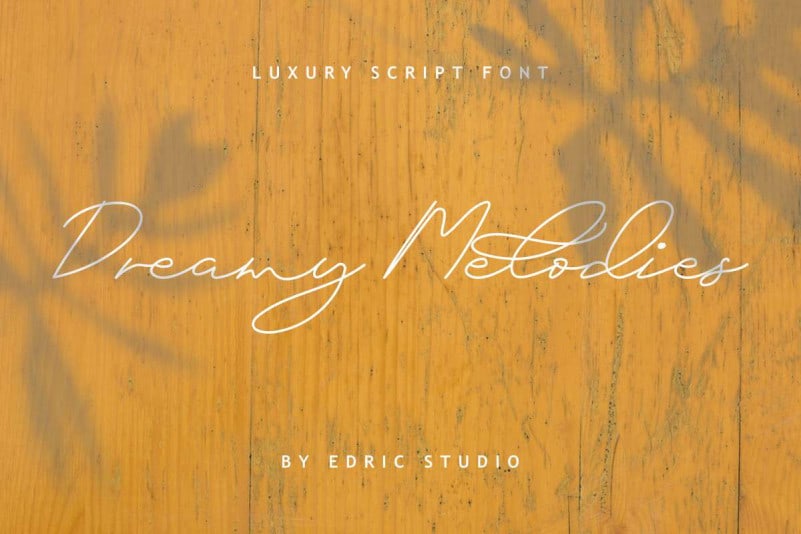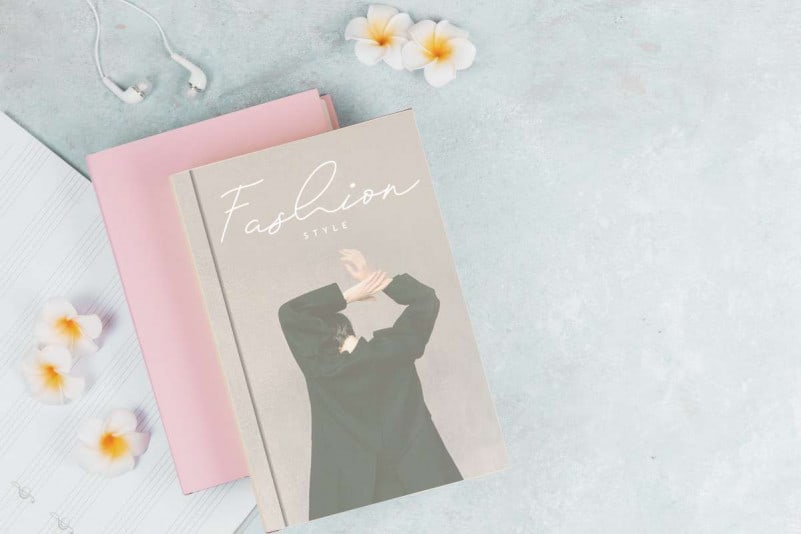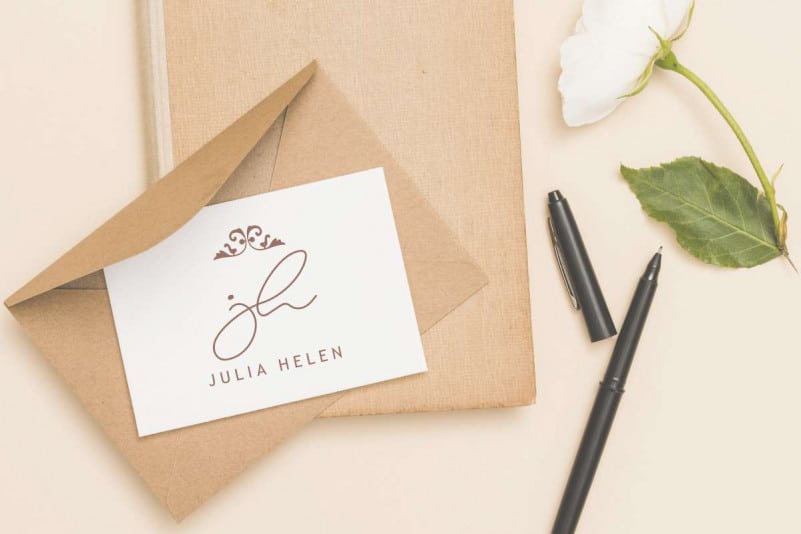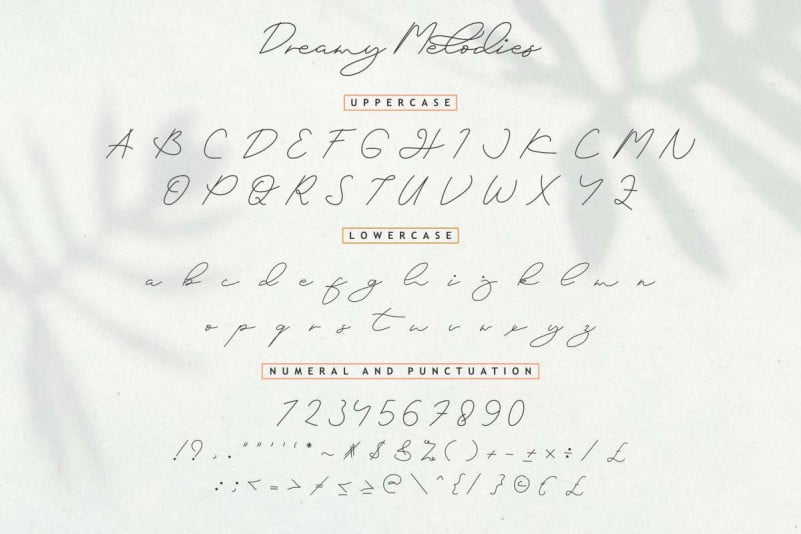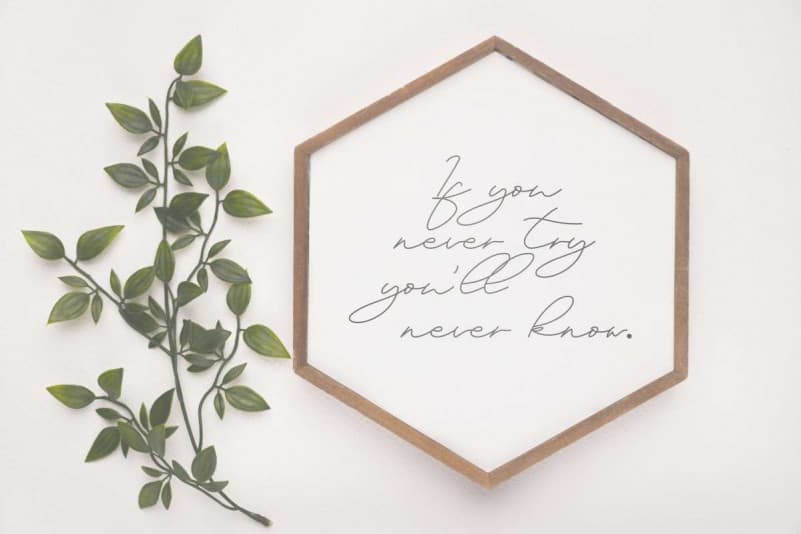
Dreamy Melodies Signature Font
Dreamy Melodies Signature Font is an exclusive handwritten script typeface with signature style. This font has a stunning characters set, perfectly managed with well spaced and kerning. The theme style of this font will elegant, vintage, stylish, sophisticated and classic signature style.